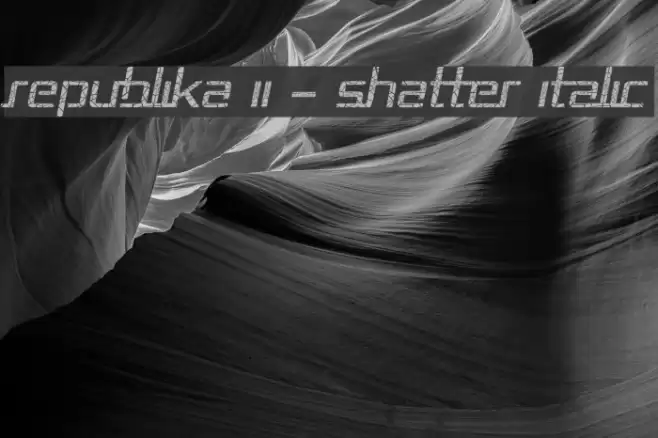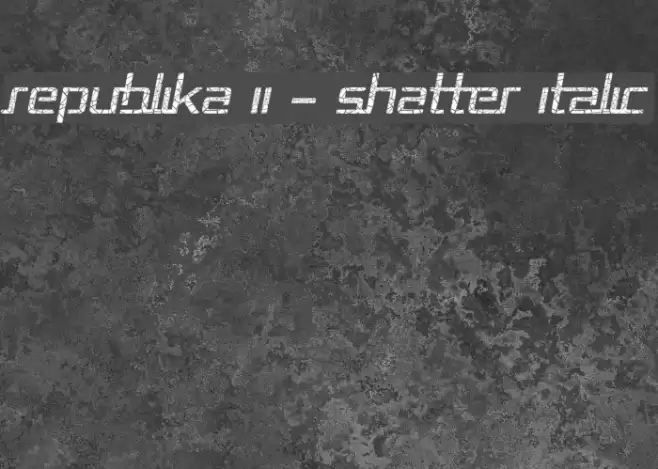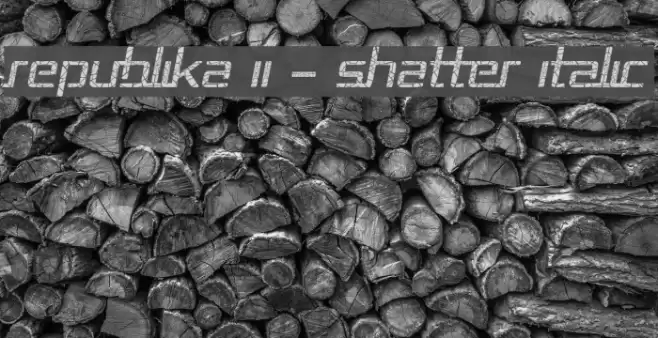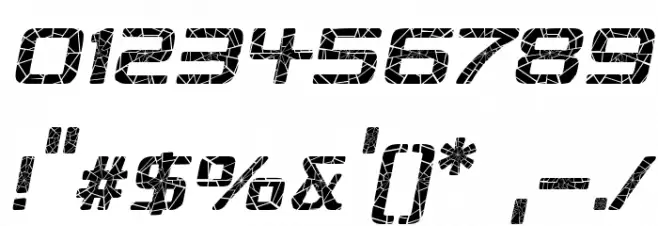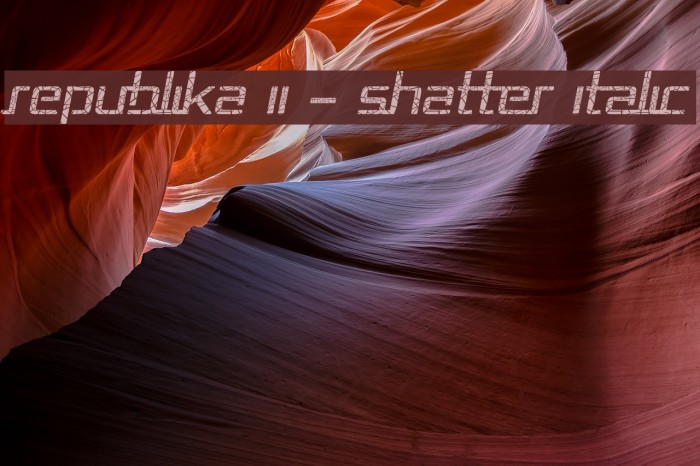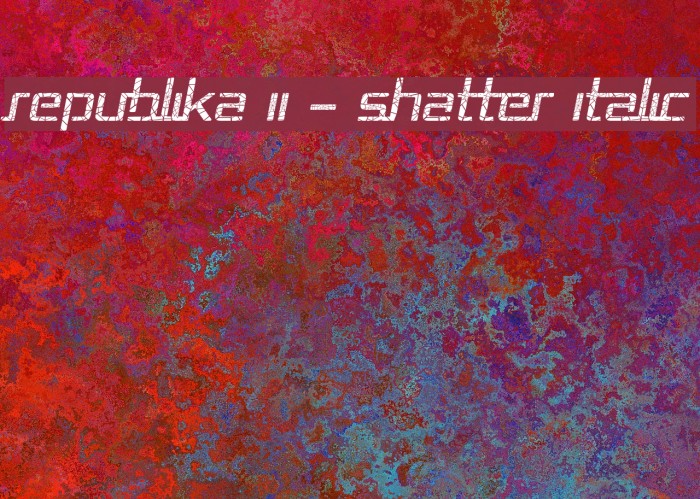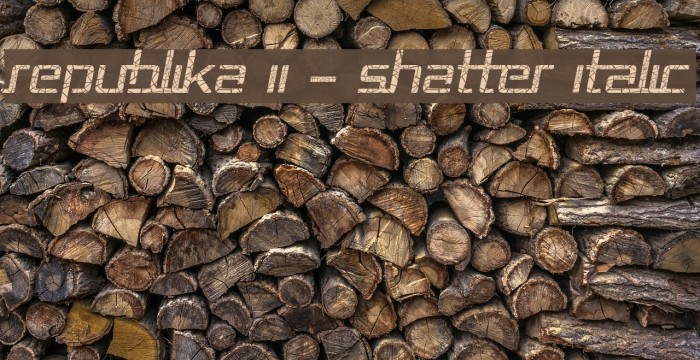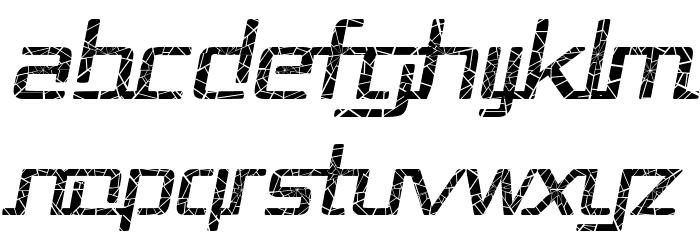
Republika II - Shatter Italic Font
Republika II - Shatter Italic Description
This font features a unique shattered effect, giving each character a fragmented, dynamic appearance. The letters are italicized, adding a sense of movement and energy. The design is bold and eye-catching, making it suitable for projects that require a strong visual impact. The characters are well-defined, with a consistent pattern of breaks and angles that create a cohesive look across the entire set. This font is particularly effective in conveying a modern, edgy aesthetic, making it ideal for creative and contemporary designs.
A bold, italicized font with a unique shattered effect, perfect for modern designs from Uncategorized fonts.
- Proposed Projects: Ideal for album covers, posters, branding for edgy or modern companies, and digital artwork.
- Overall Style: Modern, Edgy